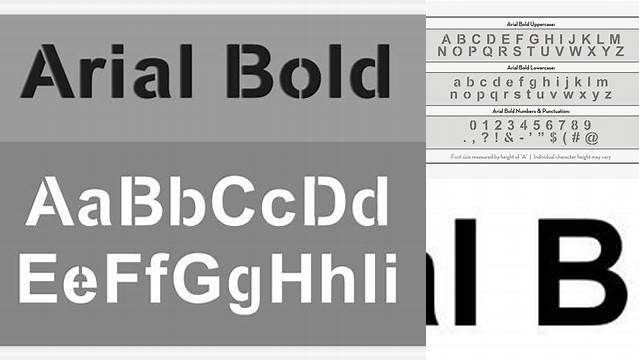
Arial Bold Font Stencil: Free Download Guide
Hey guys! So, you're on the hunt for that perfect Arial bold font stencil, huh? Maybe you're getting ready for a craft project, a DIY signage endeavor, or perhaps you need some killer lettering for a presentation. Whatever your reason, finding a high-quality, free Arial bold stencil font can be a total game-changer. It saves you time, money, and honestly, it just makes your creative process so much smoother. We're talking about a font thatâs universally recognized, super versatile, and when you get it in a bold stencil form? Itâs practically begging to be used for impactful designs. This guide is going to dive deep into how you can snag these awesome resources, where to find them, and what to look out for to ensure you're getting the best bang for your buck (or lack thereof, since we're going for freebies!).
Understanding Arial Bold Stencil Fonts
Alright, let's break down what exactly an Arial bold font stencil is, because the term itself has a few layers, you know? First off, you've got Arial. This is one of the most ubiquitous fonts out there, guys. It's a sans-serif typeface, meaning it doesn't have those little decorative feet (serifs) at the ends of the strokes. Think clean, modern, and super readable. It's the font your word processor probably defaults to, and for good reason â itâs incredibly versatile. Now, add bold into the mix. This means the strokes of the letters are thicker, giving them more weight and presence. It makes text stand out, grab attention, and convey a sense of strength or importance. Think headlines, titles, or anything you really want to pop. But the real magic happens when you slap the word stencil on there. A stencil font is designed with the intention of being used with a stencil. What does that mean practically? It means the letters have little âbridgesâ or connectors that keep the inner parts of letters like 'O', 'A', 'B', 'D', 'P', 'Q', 'R', '4', '6', '8', '9', '0' from falling out when you cut them out of a stencil material. These bridges ensure that the letterform remains intact, even when youâre transferring it onto a surface. So, an Arial bold font stencil is essentially the clean, strong, and readable Arial bold typeface, modified to include these essential stencil connectors. Itâs perfect for crafts, woodworking, painting, signage, and any project where you need to replicate lettering cleanly and efficiently. The combination of Arial's classic readability and the stencil's practical design makes it a sought-after asset for designers and hobbyists alike. Finding these specifically might seem tricky, but trust me, there are ways to get that classic Arial look in a stencil format without breaking the bank, and weâre going to explore exactly how to do that right here.
The Perks of Using Arial Bold Stencil Fonts
So, why should you be hyped about using an Arial bold font stencil, anyway? Let's chat about the benefits, because there are quite a few, guys. Firstly, readability. Arial is a champion of readability. Even in its bold form, itâs super clear and easy to understand. When youâre using it as a stencil, especially for projects like signs, painted furniture, or even custom clothing, you want people to be able to read your message easily. This font delivers on that front every single time. Itâs not overly stylized or complicated, so your message is always front and center. Another massive plus is its versatility. Whether youâre painting on wood, fabric, glass, or even cake frosting (why not!), an Arial bold stencil font works beautifully. It adapts to different surfaces and mediums. Think about crafting custom tote bags, personalizing a wooden sign for your garden, or creating professional-looking labels for your pantry. The bold weight gives it impact, and the stencil design makes application a breeze, ensuring clean, crisp lines every time you apply paint or other mediums through the stencil. Then thereâs the professional look. Because Arial is such a recognized and clean font, using it in a stencil format automatically lends a polished, professional feel to your projects. It avoids that amateurish look that can sometimes happen with hand-drawn lettering or less refined fonts. You get that crisp, commercial-quality appearance, even if youâre just a hobbyist working from your garage. Plus, let's not forget the DIY efficiency. Having a pre-made stencil font means you donât have to painstakingly draw out each letter, measure carefully, and hope your lines are straight. You can simply print the stencil (or use a cutting machine) and get straight to the creative part â applying the paint! This saves you a ton of time and frustration, allowing you to focus on the finishing touches that really make your project shine. And, of course, the fact that you can often find these as free downloads is a massive win. It means you can achieve high-quality results without investing a fortune, making your creative projects more accessible and budget-friendly. So yeah, the advantages are pretty solid, making this font a go-to for so many different creative endeavors. Itâs all about making your life easier and your projects look absolutely fantastic.
Designing Your Own Stencil with Arial Bold
Okay, so maybe you've scoured the free font sites, and while you found some great stuff, youâre still not quite getting that exact Arial bold font stencil look youâre picturing. Or perhaps you want complete control over the stencil design itself. Good news, guys: you can totally design your own stencil using Arial bold! Itâs not as daunting as it sounds, and it gives you ultimate flexibility. The most straightforward way to do this is by using basic graphic design software or even word processing software, combined with a stencil generator tool or a little bit of manual editing. First things first, you need access to the Arial bold font. Most computers come with it pre-installed, so you're probably already set. Open up a program like Microsoft Word, Google Docs, or a free alternative like LibreOffice Writer. Type out the text or letters you need in Arial bold. Make sure itâs set to a nice, large size so you can see it clearly. Now, hereâs where the âstencilâ part comes in. You need to connect the inner parts of the letters. For example, the counter (the hole) in an 'O' or 'A' needs a small bridge added so it doesn't fall out when you cut the stencil. You can do this manually by using the shape tools in your software to draw small rectangles or lines and strategically place them to connect these parts. It takes a bit of patience, but it ensures the integrity of the stencil. Alternatively, and often much easier, is to use an online stencil generator. Search for âonline stencil makerâ or âfont stencil generator.â Many of these tools allow you to input your text, choose a font (you might need to upload the Arial bold font file if the tool supports it, or select a similar sans-serif font), and then the software automatically adds the stencil bridges for you. You can usually adjust the thickness of these bridges and the overall design. Once you have your text formatted with stencil connections, you can then save it as a PDF or an image file. This file is what you'll use to create your physical stencil. You can print it directly onto cardstock or sticker paper if youâre doing small crafts, or if you have a cutting machine like a Cricut or Silhouette, you can import the file and have the machine precisely cut the stencil from stencil vinyl or cardstock. This method gives you complete control over the spacing, size, and even the style of the stencil bridges, ensuring your Arial bold font stencil is exactly how you envisioned it. Itâs a fantastic way to get bespoke stencils for any project, big or small, ensuring that unique, professional look youâre after without relying solely on pre-made downloads. Plus, itâs a great skill to have for all your future DIY adventures!
Crafting with Arial Bold Stencil Letters
Now that you know where to find or how to create your Arial bold font stencil, letâs talk about the fun part: actually crafting with them, guys! This is where your creativity truly shines. Using these stencils, especially the bold Arial ones, opens up a world of possibilities for personalized projects. Think about adding some flair to your home decor. You could create custom throw pillows with your initial or a meaningful word in a bold Arial stencil. Just secure your stencil, apply fabric paint with a sponge or brush, let it dry, and voilĂ â instant style upgrade! Or perhaps you want to personalize some tote bags for a special event or just for everyday use. The stencil makes it super easy to get clean, repeatable designs. Same goes for wooden signs; whether it's for your garden, your kitchen, or a festive holiday message, an Arial bold stencil provides that classic, impactful look thatâs hard to beat. For woodworking enthusiasts, you can use these stencils to add painted lettering to custom boxes, furniture pieces, or even signs for your workshop. The bold stencil letters ensure the paint lines are sharp and professional, giving your woodwork that extra touch of finesse. For party planning or special occasions, imagine creating personalized banners or table settings. A few well-placed bold stencil letters can elevate the entire theme. Even something as simple as decorating plain ceramic mugs or glass jars can be transformed with these fonts. Use glass paint or permanent markers for a lasting effect. Remember to secure your stencil properly with painter's tape or a temporary adhesive spray to prevent any bleeding underneath the edges. When applying paint, use a dabbing or stippling motion rather than brushing side-to-side to keep the paint crisp. If youâre using a cutting machine, you can even cut the stencils from adhesive vinyl, which makes positioning them on your project incredibly easy and helps minimize paint bleed. The beauty of the Arial bold stencil is its inherent clarity and strength. Itâs a design element that commands attention without being overwhelming. Whether youâre adding a house number to your mailbox, creating motivational quotes for your workspace, or designing unique gifts for friends and family, the reliability and aesthetic appeal of this font in a stencil format make the crafting process enjoyable and the results consistently impressive. Itâs all about making your mark, literally, with clean lines and undeniable style. So, grab your stencil, your paint, and letâs get creating!
Benefits for DIY Sign Making
When it comes to DIY sign making, guys, the Arial bold font stencil is an absolute powerhouse. Seriously, if you're aiming for professional-looking signs without the professional price tag, this is your go-to. One of the biggest advantages is the sheer consistency it provides. Unlike freehand lettering, which can vary even for the most skilled among us, a stencil ensures every letter is perfectly formed and aligned. This means your sign will have that crisp, uniform look that screams quality. Whether youâre making a welcome sign for your porch, a custom sign for your business, or even directional signs for an event, uniformity is key, and this font delivers it in spades. Another massive perk is the speed it enables. Once you have your stencil ready â whether printed, cut from cardstock, or even vinyl â applying the lettering is significantly faster than drawing each letter individually. You can replicate the same lettering across multiple signs or different parts of a large sign with ease. This efficiency is a lifesaver when you have a deadline or are working on a large batch of signs. Plus, the boldness of Arial Bold is perfect for signage. It ensures maximum readability from a distance. Think about road signs or shop signs; they use bold, clear fonts for a reason. Arial Bold has that inherent legibility that grabs attention and clearly communicates your message, which is crucial for any effective sign. The stencil design itself is the secret sauce for clean edges. You get crisp, sharp lines every single time, preventing the fuzzy or messy look that can occur with freehand painting, especially for beginners. This clean finish makes your DIY signs look much more polished and professional, potentially even passing them off as store-bought! Furthermore, the accessibility of finding or creating these stencils is a huge plus. As we discussed, many resources are free, and the process of creating your own is straightforward with readily available tools. This democratizes good sign design, allowing anyone with a printer or a cutting machine to produce high-quality results. Whether youâre painting on wood, metal, or acrylic, the Arial bold font stencil adapts well, providing a reliable and stylish foundation for all your signage needs. It truly empowers you to create impactful, beautiful signs that you can be proud of.
Enhancing Woodworking Projects
Alright, fellow woodworkers and DIY enthusiasts, let's talk about how an Arial bold font stencil can seriously level up your woodworking projects, guys. Wood is a fantastic medium, but adding personalized text or graphics can sometimes be tricky to get just right. Thatâs where these stencils come in as absolute game-changers. The primary benefit is achieving precision on a material that can sometimes be a bit unforgiving. When you're carving, burning, or painting onto wood, a stencil ensures that your letters are perfectly formed, evenly spaced, and consistently sized every single time. This is crucial for projects like custom address signs, personalized keepsake boxes, workshop plaques, or even intricate designs on furniture. The boldness of Arial is perfect here because it provides a strong visual presence that stands out beautifully against wood grain. Itâs impactful without being overly fussy, making it suitable for both rustic and modern designs. The stencil design means you get crisp, clean lines, preventing paint or wood stain from bleeding into the wood grain in an uncontrolled way, which is a common challenge when working with porous surfaces. This results in a much more professional and polished finish. Imagine creating a beautiful wooden sign for a wedding gift, featuring the couple's names in a clear, bold Arial stencil font. Or perhaps personalizing a cutting board with their initial or a family name. The stencil guides your paint application, ensuring a sharp edge against the wood. For wood burning (pyrography), you can trace the stencil outline onto the wood and then carefully burn along the lines. The bold nature of the font helps create strong, dark lines that are easy to see and follow. Similarly, if you're using paint or wood stain, you can apply it directly through the stencil, using a sponge dauber or a stencil brush with minimal paint to prevent bleeding. Some advanced users might even use the stencil as a guide for routing or carving the letters directly into the wood for a permanent, recessed effect. The ability to easily replicate the same lettering across multiple pieces or on different parts of a larger project is also a huge time-saver. Whether youâre crafting a set of matching coasters or adding lettering to a large cabinet door, the stencil ensures consistency. The accessibility of finding or creating these Arial bold font stencil files means you can experiment with different sizes and applications without a significant investment, making it a truly valuable tool in any woodworker's arsenal for adding that personal, high-quality touch. Itâs all about making your wooden creations not just functional, but also beautifully personalized and professionally finished. It really makes your work stand out, guys!
Creative Applications Beyond Signage
Hey creatives, let's think outside the box, guys! While Arial bold font stencil downloads are fantastic for signage, their utility stretches way beyond just making signs. The clean, strong lines and inherent readability of this font, combined with the stencilâs practical design, make it incredibly versatile for a whole range of creative applications you might not have considered. Think about personalizing apparel! You can use these stencils to add bold lettering to t-shirts, hoodies, tote bags, or even sneakers using fabric paint or permanent markers. Imagine creating custom team shirts, personalized gifts, or just adding a cool graphic element to your favorite jacket. The stencil ensures the design is applied cleanly and uniformly, giving your clothing a unique, designer feel. In the realm of home decor, the possibilities are endless. You could stencil patterns or words onto furniture, like the sides of drawers, the back of a bookshelf, or even an entire tabletop. Applying it to walls for an accent feature, like a motivational quote in a home office or a playful word in a nursery, is another great way to use these stencils. Use a low-tack spray adhesive to hold the stencil firmly in place on walls or furniture for the cleanest lines. For scrapbooking and journaling, a bold stencil font can add a fantastic focal point to your pages. You can trace the letters, use a sponge to apply ink or paint lightly over the stencil, or even use a textured paste for a dimensional effect. This adds a professional and artistic touch to your memory-keeping. Even in baking and cake decorating, stencils are a thing! You can get food-safe stencils or use powdered sugar, cocoa powder, or edible paint to decorate cakes, cookies, and cupcakes with bold Arial lettering for birthdays or special events. Just be sure your stencil material is food-safe or that you use appropriate techniques to keep it clean. For crafts involving ceramics or pottery, you can use the stencils to mark out designs before glazing or to apply underglaze colors. The Arial bold font stencil provides a modern, graphic look that works well on various craft surfaces. Itâs all about leveraging that clean, impactful aesthetic for whatever project sparks your imagination. The ease of use and the professional results achievable with these stencils make them invaluable tools for anyone looking to add personalized, stylish text to their creations. So go ahead, experiment, and see where this versatile font can take your crafting!
Tips for Using Stencil Fonts Effectively
Alright guys, so you've got your awesome Arial bold font stencil downloaded, or maybe you've designed your own. Now, let's talk about making sure you use them like absolute pros! Getting those perfect, crisp lines isn't just about the font; it's also about your technique. So, pay attention to these pro tips, and your projects will look seriously impressive. First off, securing the stencil is non-negotiable. Whether you're using painter's tape, stencil adhesive spray, or a stencil with its own adhesive backing, make sure it's stuck down firmly around all edges. Any movement or gaps will lead to paint bleeding underneath, ruining that clean stencil effect. Double-check it before you start applying paint. Next, control your paint. This is probably the most crucial tip, guys. Use minimal paint on your brush, roller, or sponge. Load your applicator, then wipe off the excess on a paper towel or a piece of scrap material until itâs almost dry. You want to use a dabbing or stippling motion, not a brushing or swiping motion. This pushes the paint into the stencil openings without letting it seep underneath. Build up the color in layers if needed; itâs always better to start light and add more than to go too heavy initially. Also, consider the type of applicator. For larger areas, a foam roller or a stencil brush works well. For smaller details or textured surfaces, a stencil brush or even a makeup sponge can be perfect. Experiment to see what works best for your specific project and paint type. Cleaning your stencil promptly after use is also key, especially if you plan to reuse it. Rinse it with warm water and mild soap, or follow the manufacturer's instructions. Dried paint can make the stencil sticky and less effective for future use, and it can also smudge your next application if not cleaned properly. If youâre using a cutting machine, consider the cut settings. Ensure your machine is set correctly for the material you're using (cardstock, vinyl, etc.) to get clean, precise cuts without tearing. For intricate stencil designs, a finer blade might be necessary. Finally, practice makes perfect. If you're new to stenciling, do a test run on a piece of scrap material first. This helps you get a feel for the paint application, pressure, and the best way to handle the stencil itself. Master these techniques, and youâll be churning out flawless Arial bold font stencil designs like a seasoned pro in no time. Itâs all about patience and the right approach, guys!
Finding Free Font Resources Online
Okay, let's circle back to the practicalities, guys, because finding those free resources for Arial bold font stencil designs is crucial if you're on a budget or just love a good bargain. The internet is absolutely brimming with places where you can snag fonts, but not all are created equal, and finding the stencil versions specifically requires a bit of savvy searching. Your primary hunting grounds should be reputable free font websites. Sites like DaFont, Font Squirrel, Google Fonts (though less likely for specific stencil variants), and Urban Fonts are goldmines. When you land on these sites, don't just search for âArial bold stencil.â Instead, use broader terms like âstencil,â âblock,â âmilitary,â âindustrial,â or âstencil cutâ to find fonts that have that characteristic stencil-like structure (the little bridges connecting parts of letters). You'll often find fonts that mimic the clean, sans-serif style of Arial bold very closely. Look for fonts described as âdisplay fontsâ or âdecorative fontsâ which often include stencil styles. Critically, always check the license. Most free fonts are for personal use only. If you plan to use your Arial bold font stencil for commercial projects (selling your crafts, business signage), you need to find fonts with a commercial use license, often labeled as